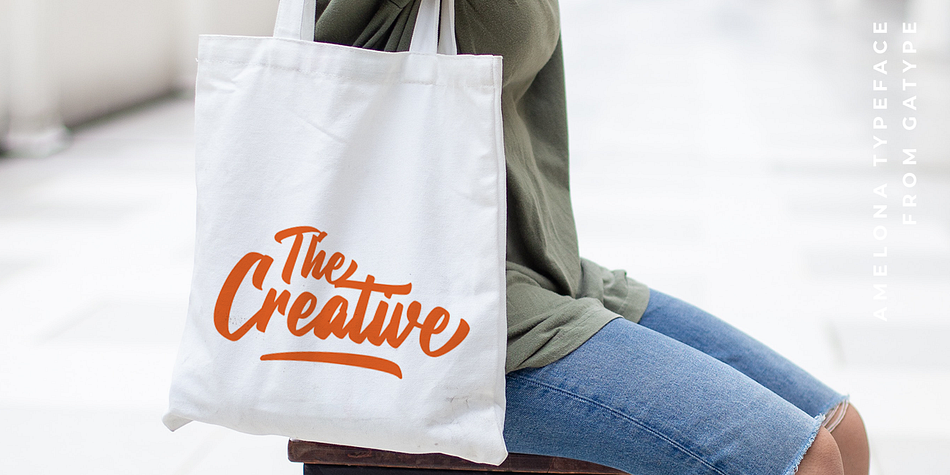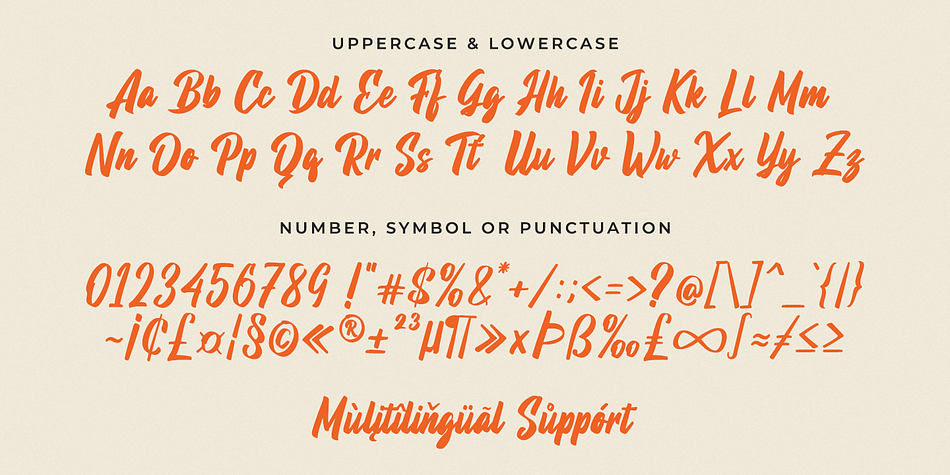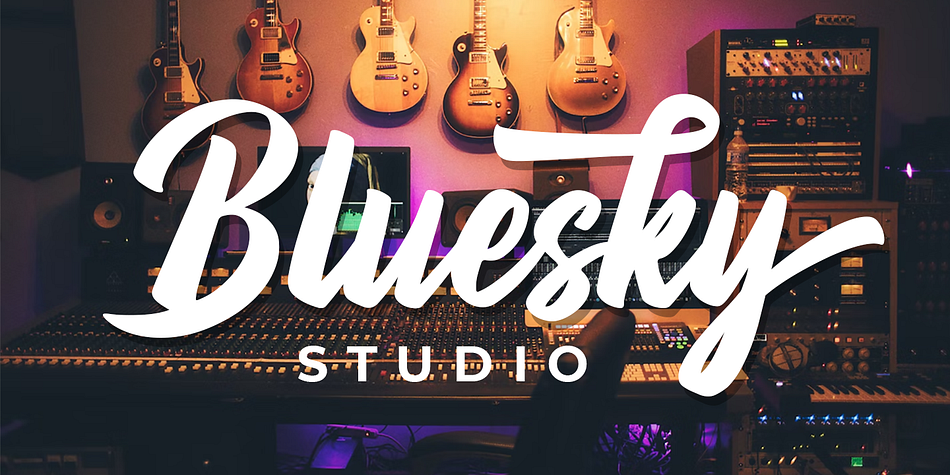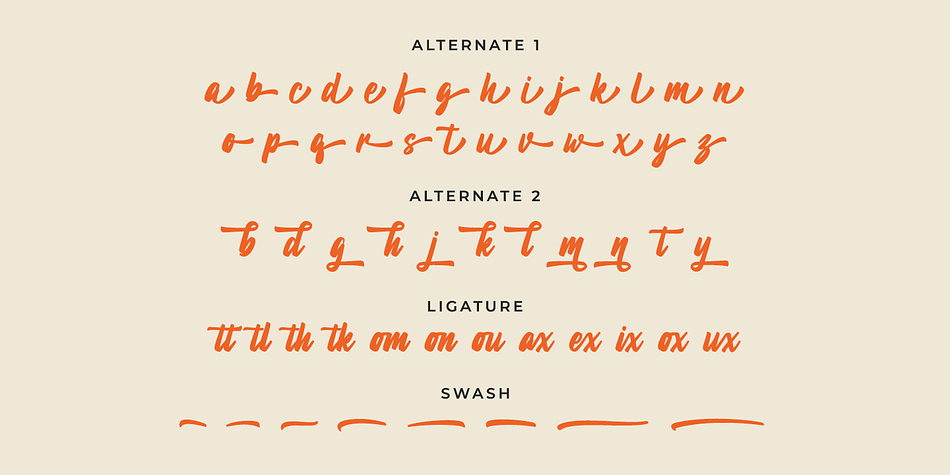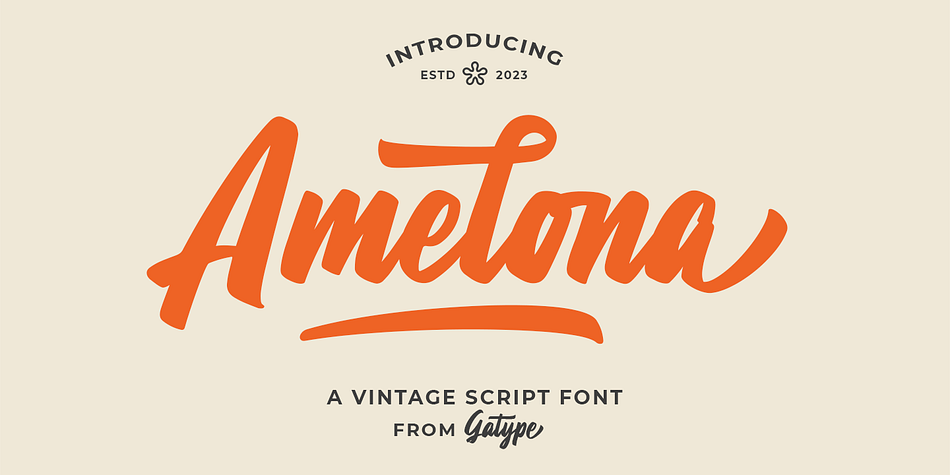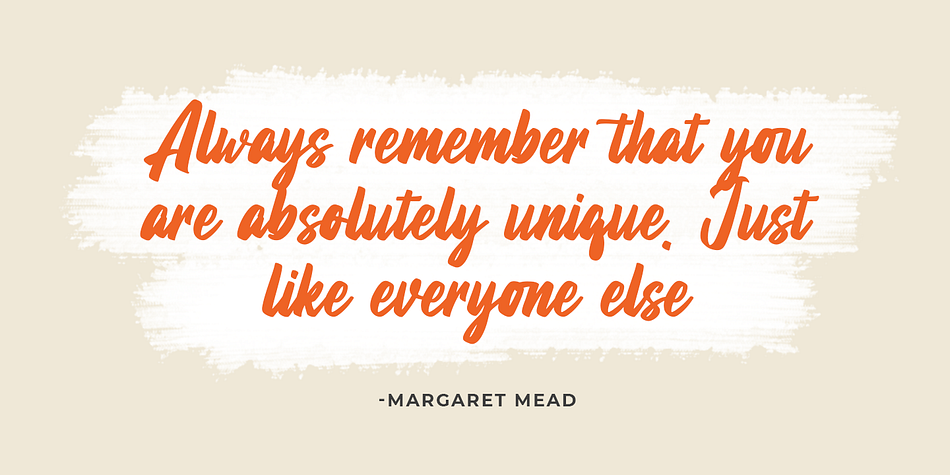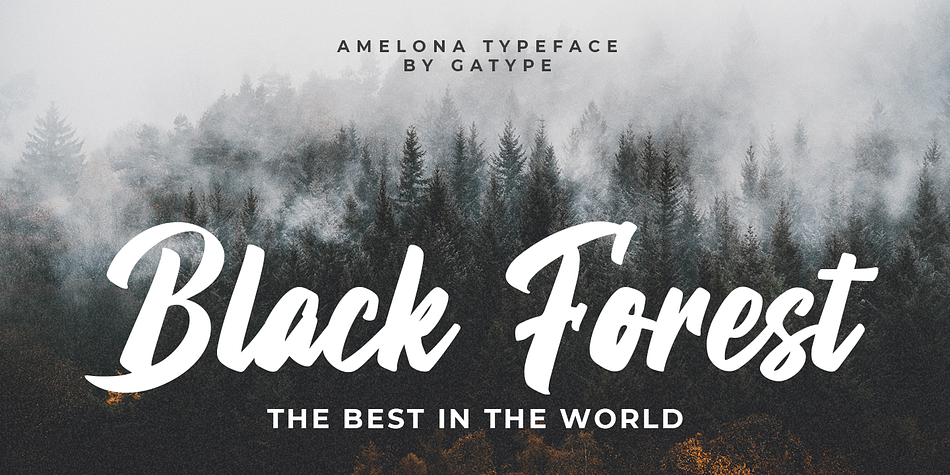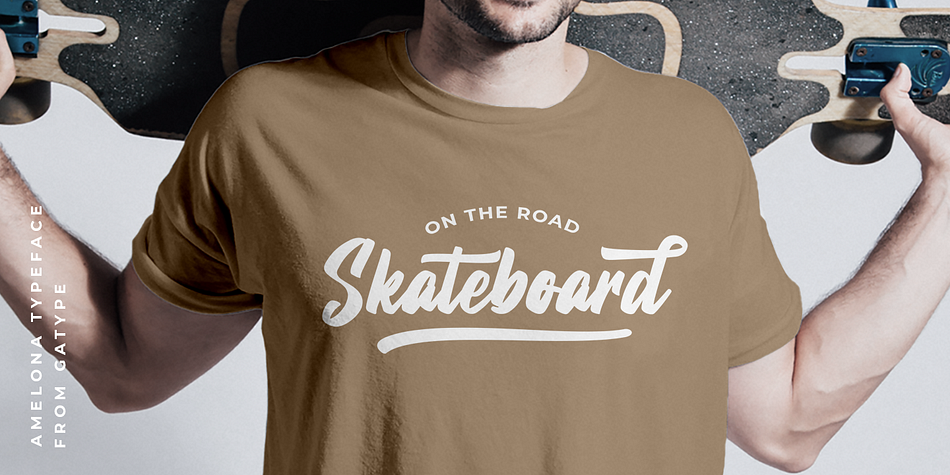
Amelona
Amelona is a brush script and dingbat font family. This typeface has two styles and was published by Gatype.
Amelona Vintage is a great family of brushes for all kinds of display uses from packaging to posters & logos to headlines. Amelona as a basic letterform is bold and clear and there are many alternatives for a more customized look. This typeface comes in uppercase, lowercase, punctuation, symbols & numbers, alternative style sets, binders, etc. Also supports multilingual and PUA encoded already.